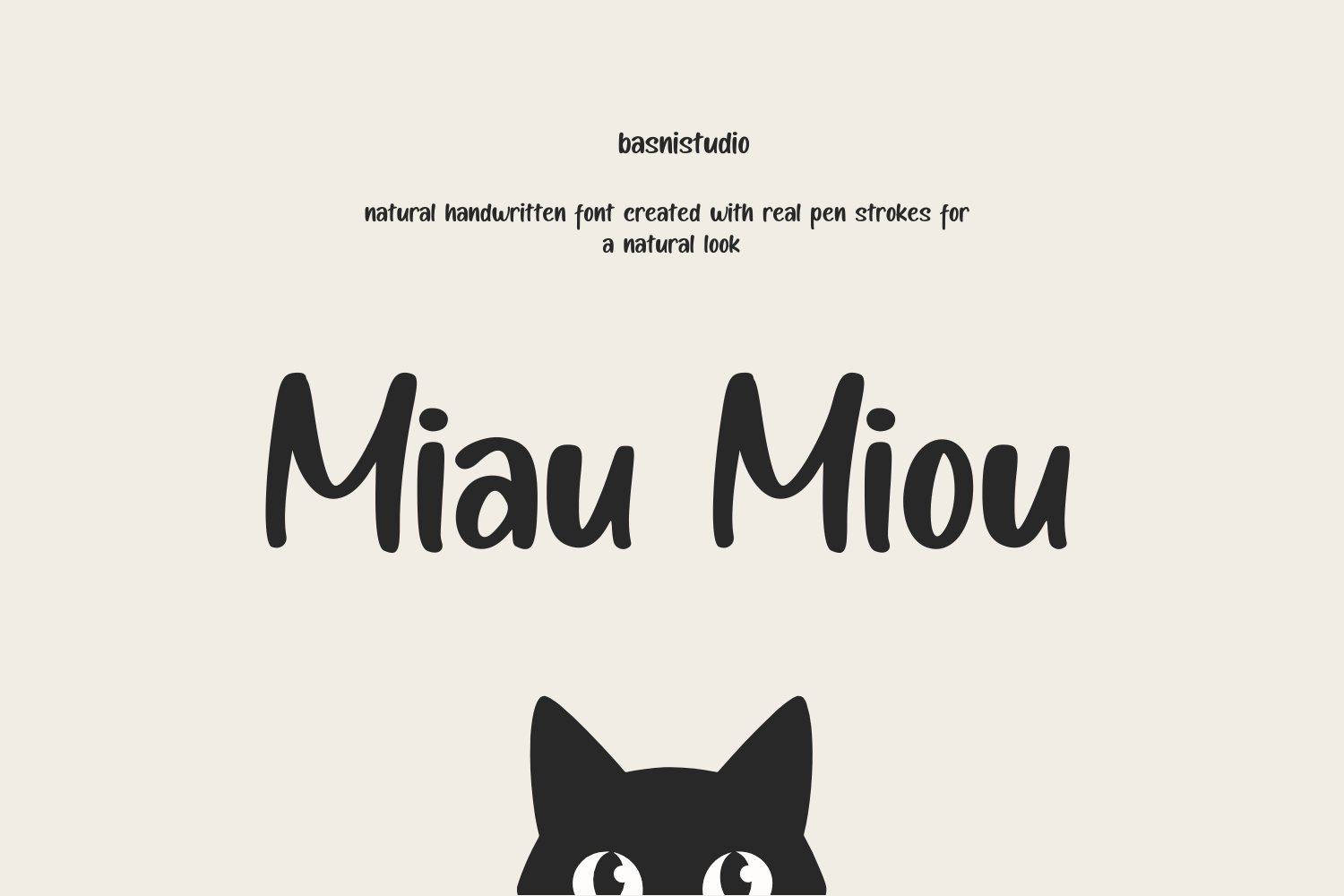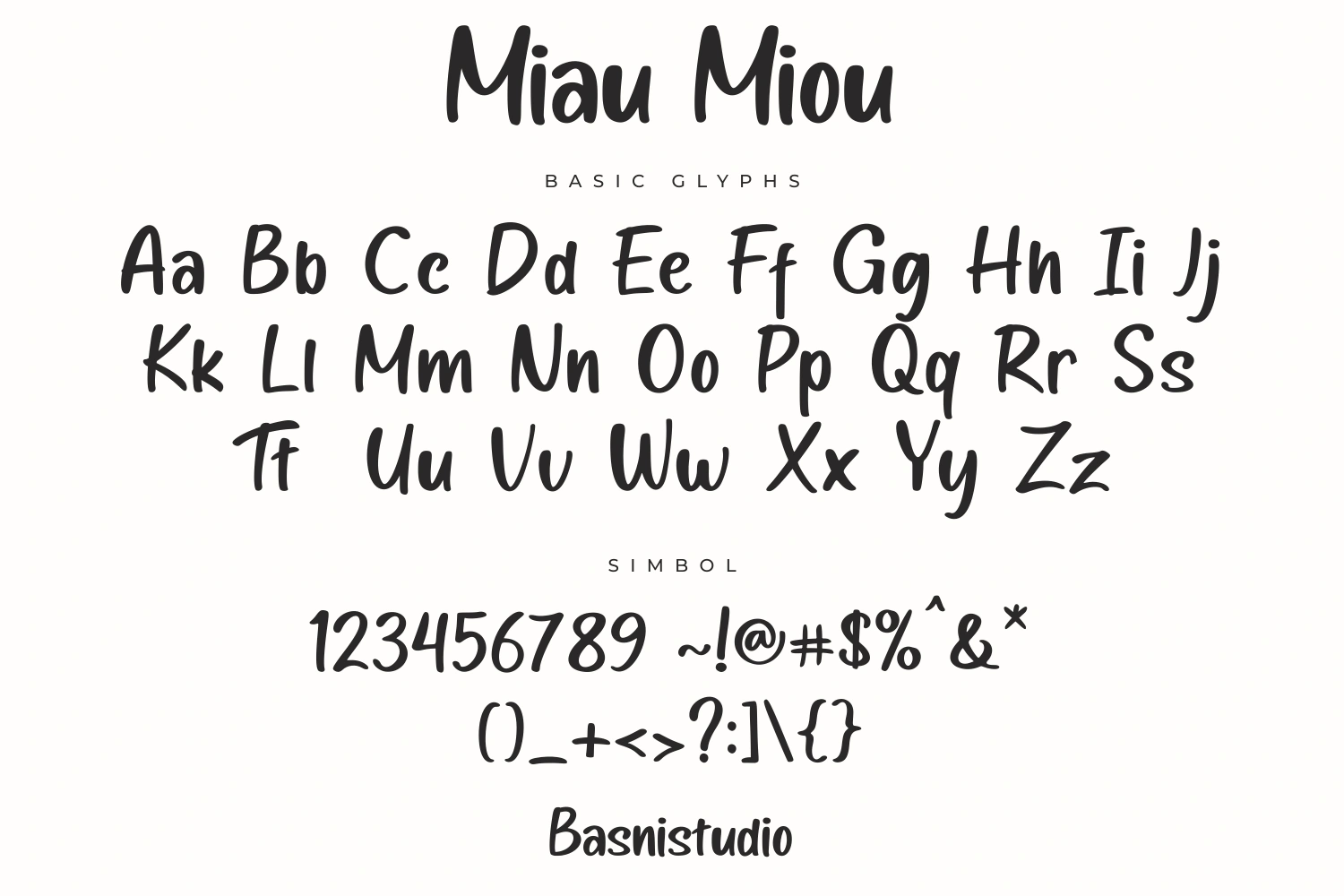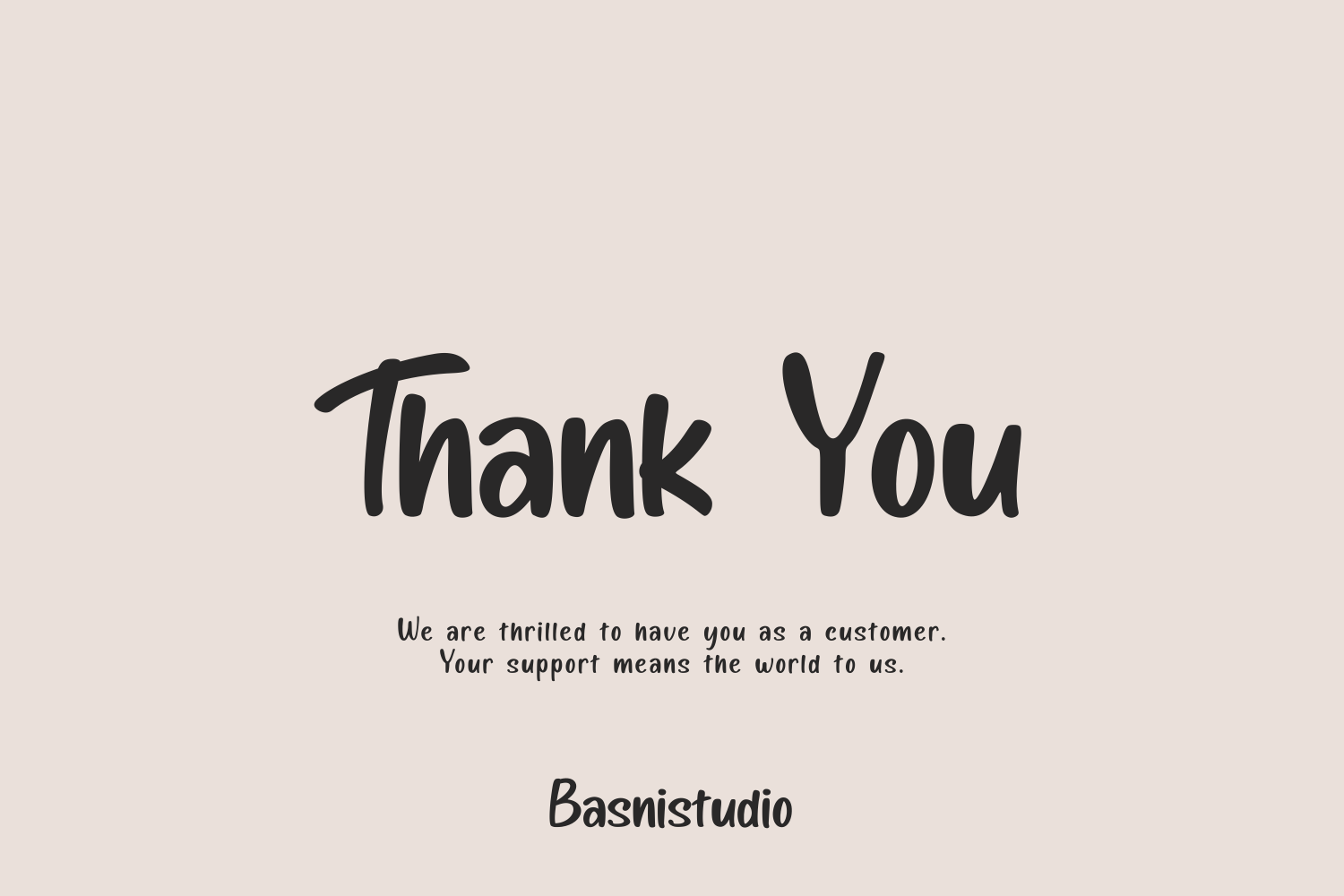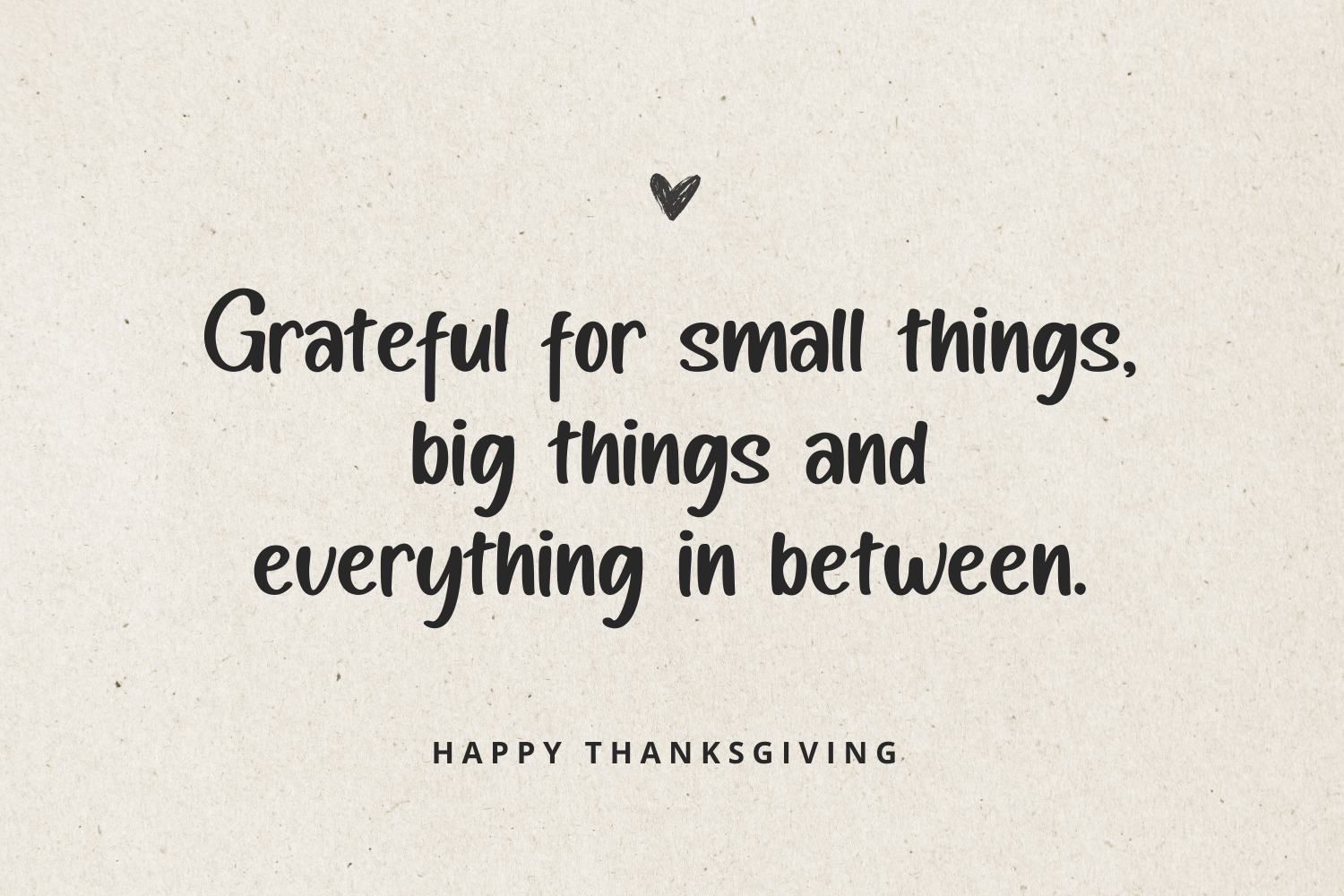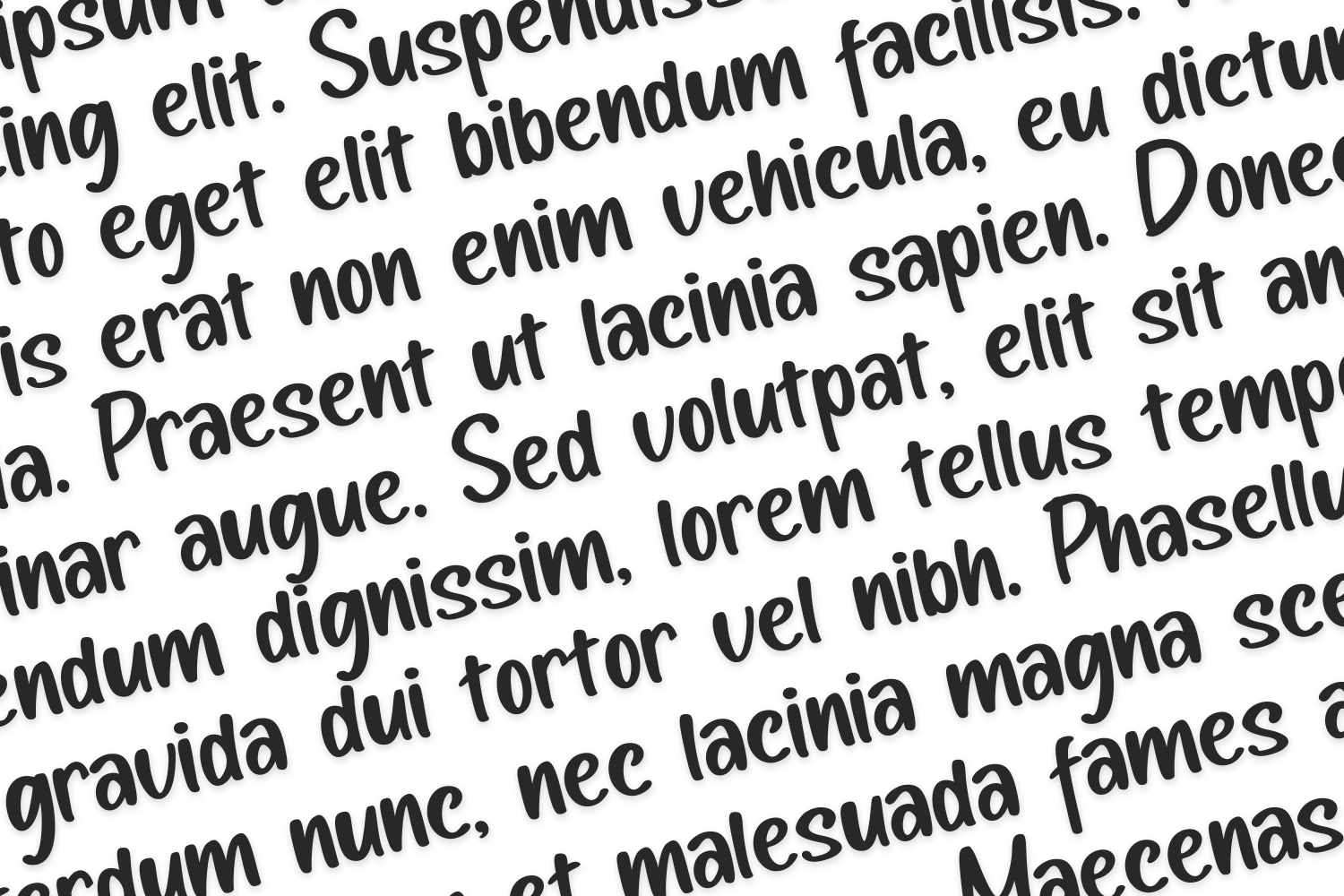
Miau Miou – Casual Handwritten Font for Branding
Handwritting Font Created with real pen strokes for a natural look and casual touch to everything from branding and social media to invitations and packaging.
Natural & Casual – Perfect for tagline, quotes, greeting cards, and more
Authentic Handwritten Feel – Created with real pen strokes for a natural look
Whether you’re building a powerful brand identity or crafting a standout design,
CoffeeAmore a Handwritting Font Created with real pen strokes for a natural look gives you the creative edge you need.